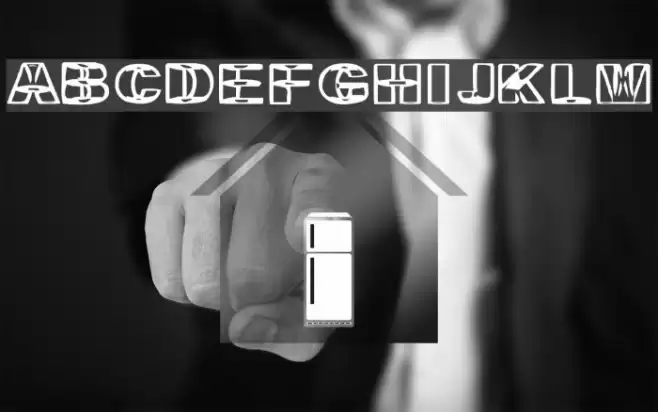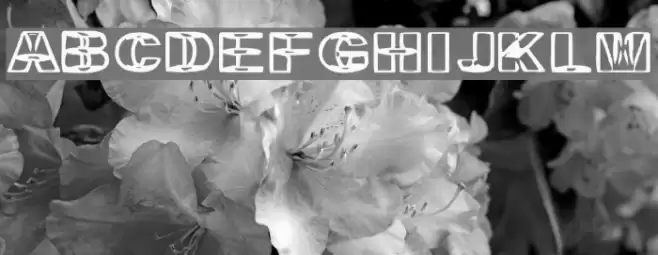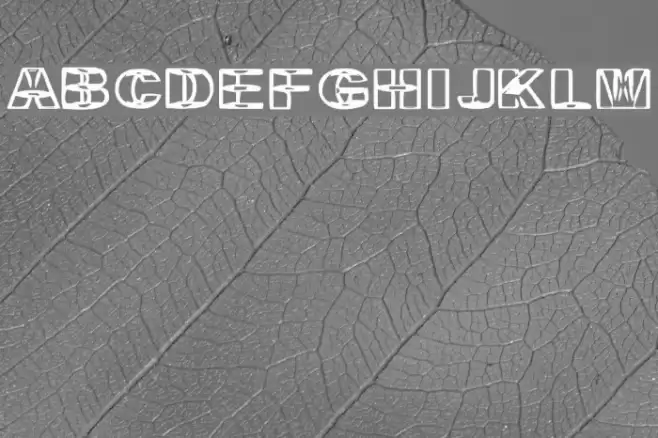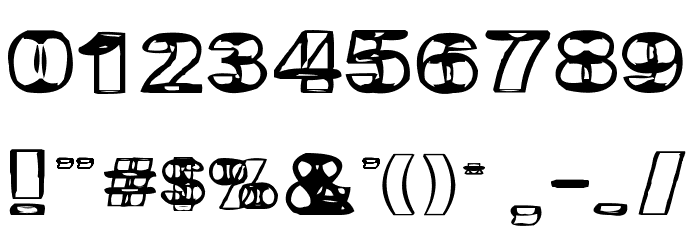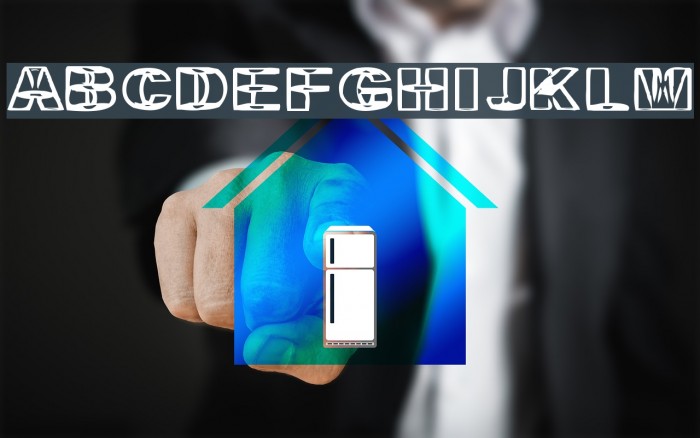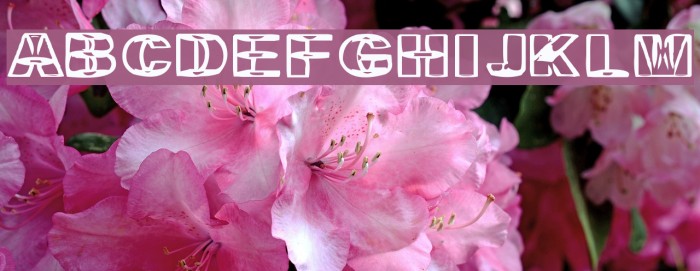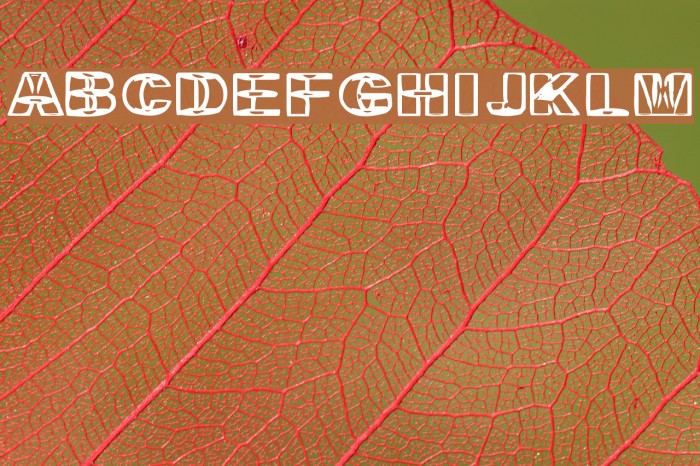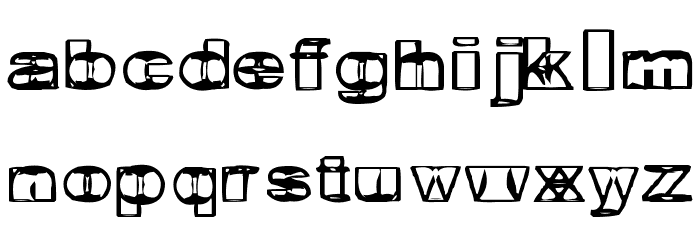
Britney in a Blender Font
Britney in a Blender Description
This font features a bold and playful design with a unique, distorted appearance. Each character is filled with overlapping shapes and lines, creating a chaotic yet intriguing visual effect. The uppercase and lowercase letters maintain a consistent style, with thick strokes and irregular outlines. Numbers and special characters follow the same design principles, adding to the font's overall quirky and artistic vibe. The font's distinctiveness makes it stand out, offering a creative and unconventional look.
A bold, playful font with a chaotic, distorted design from Outline fonts.